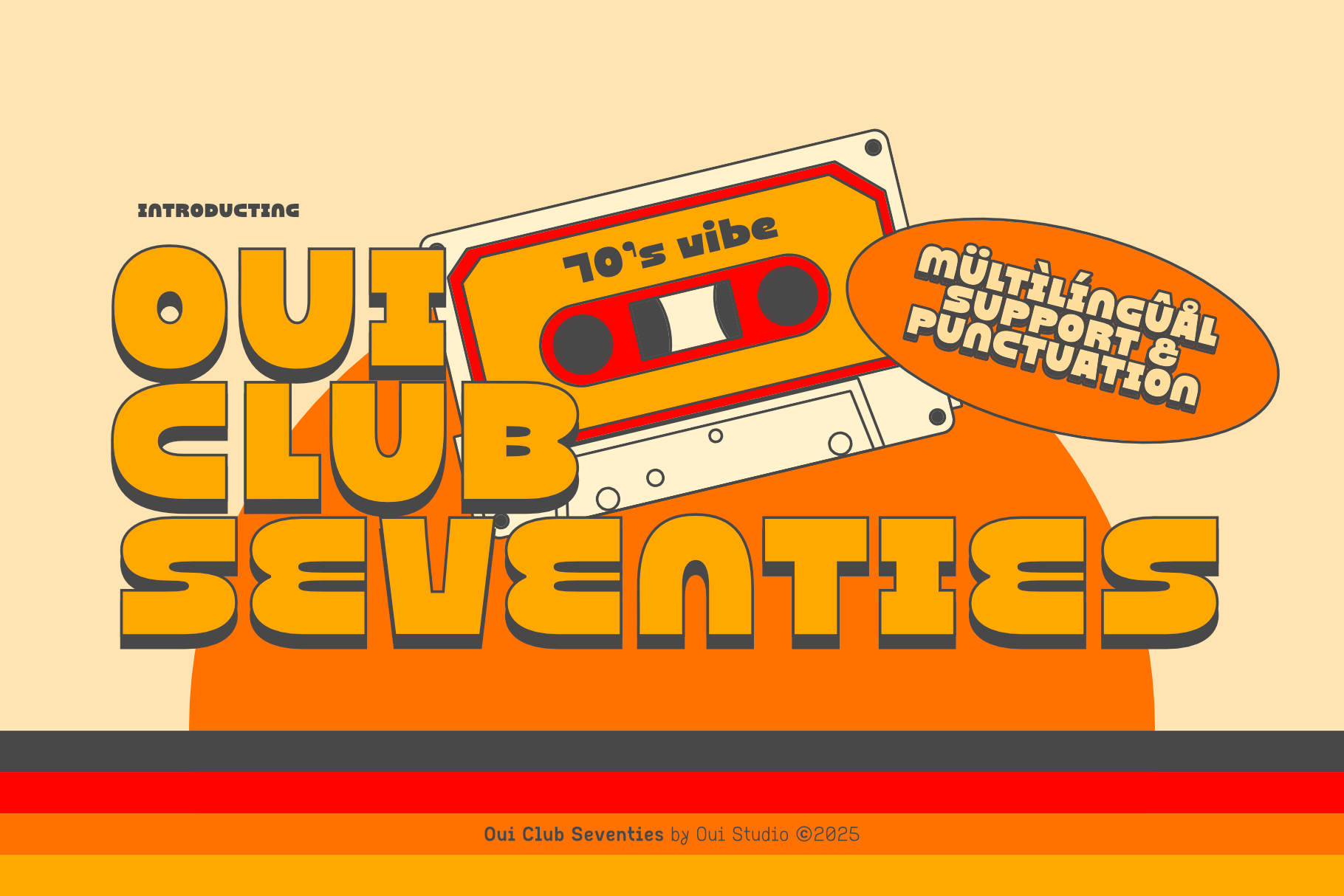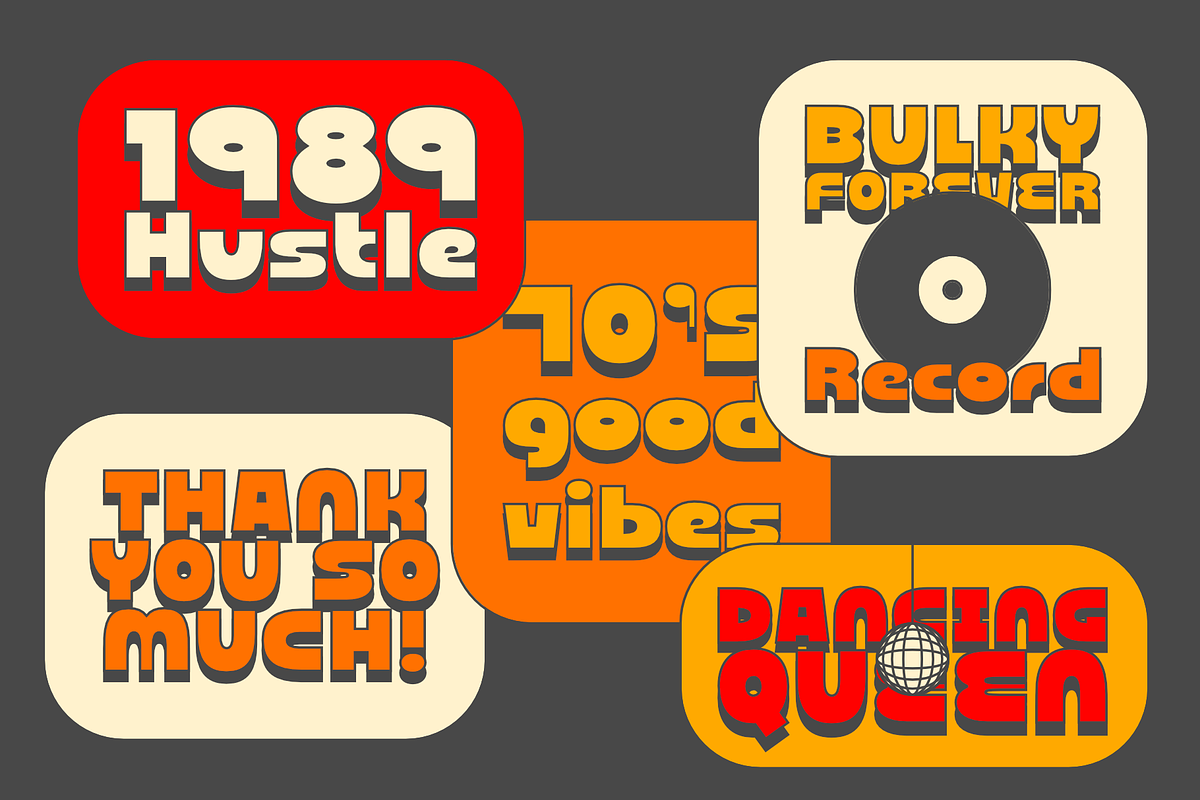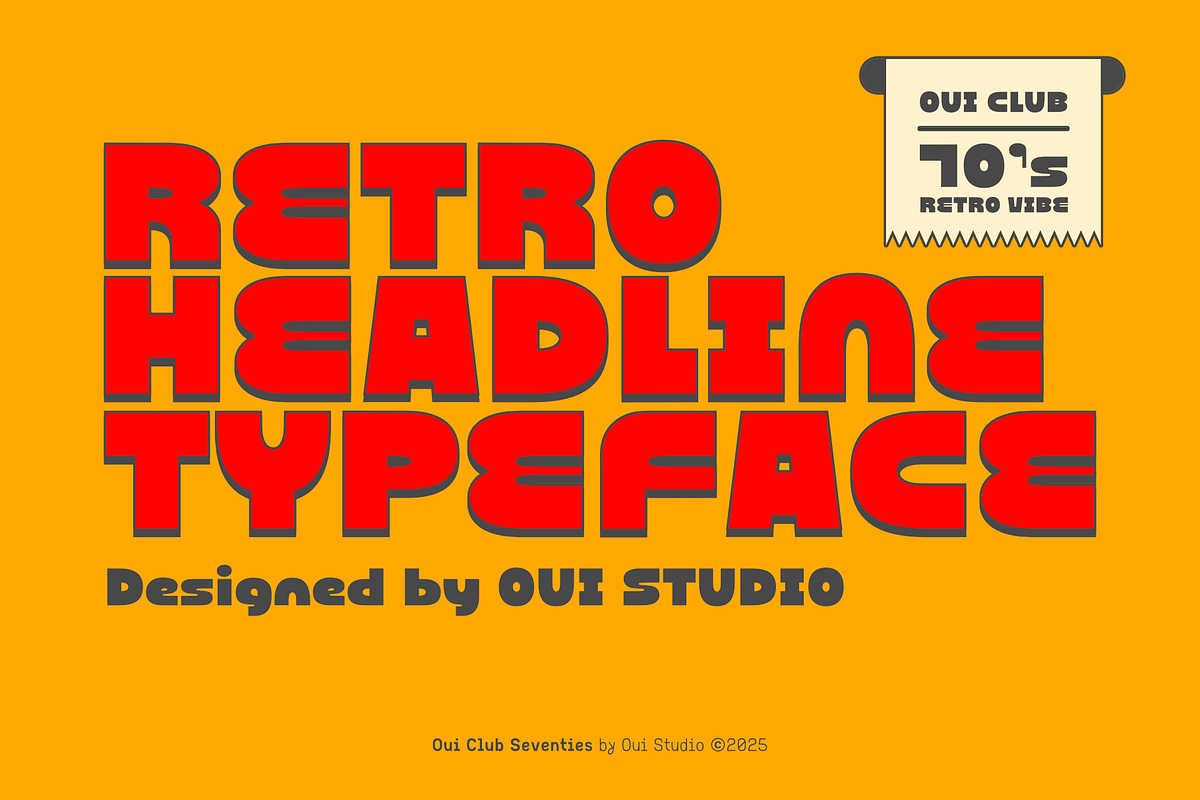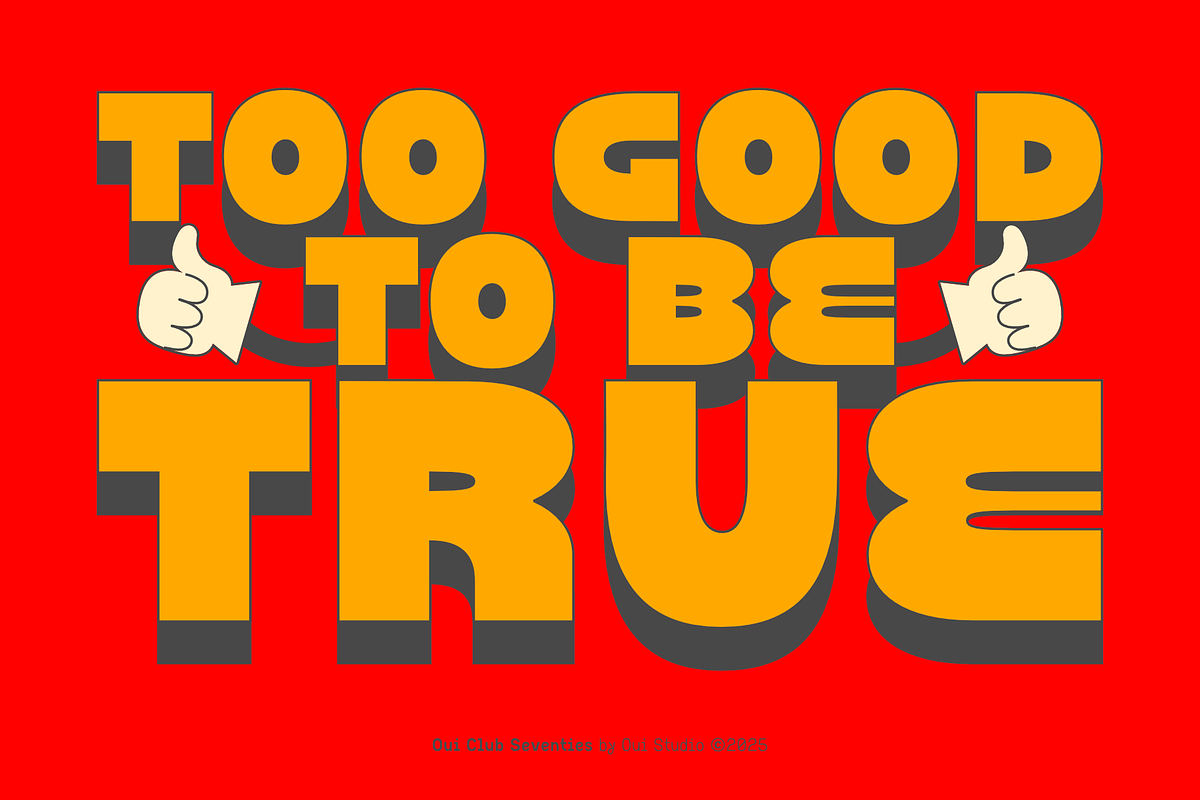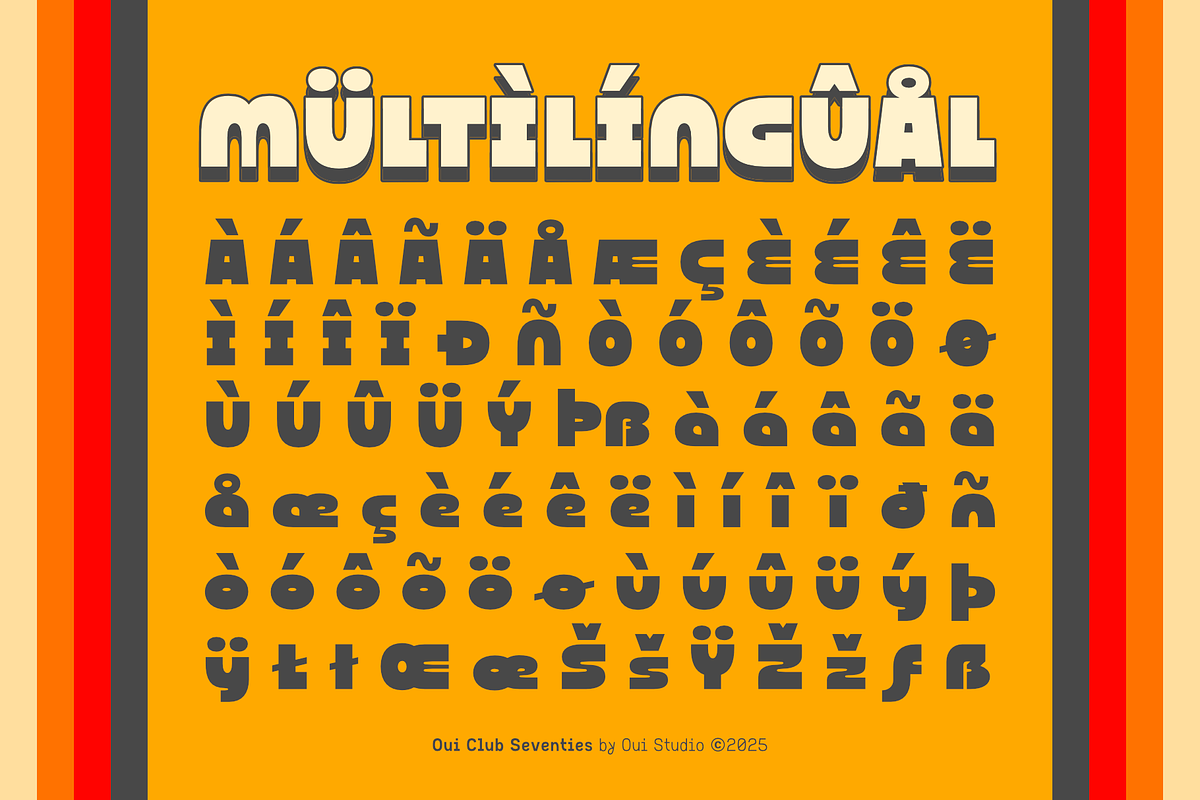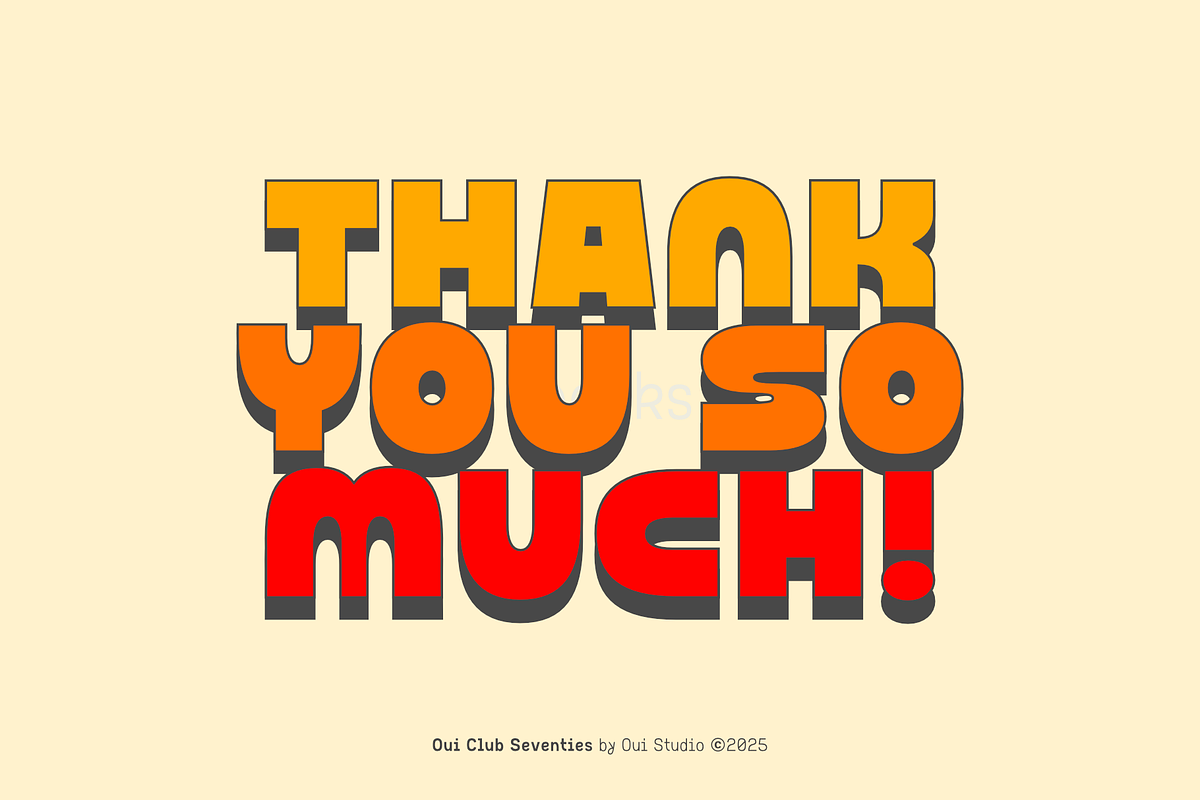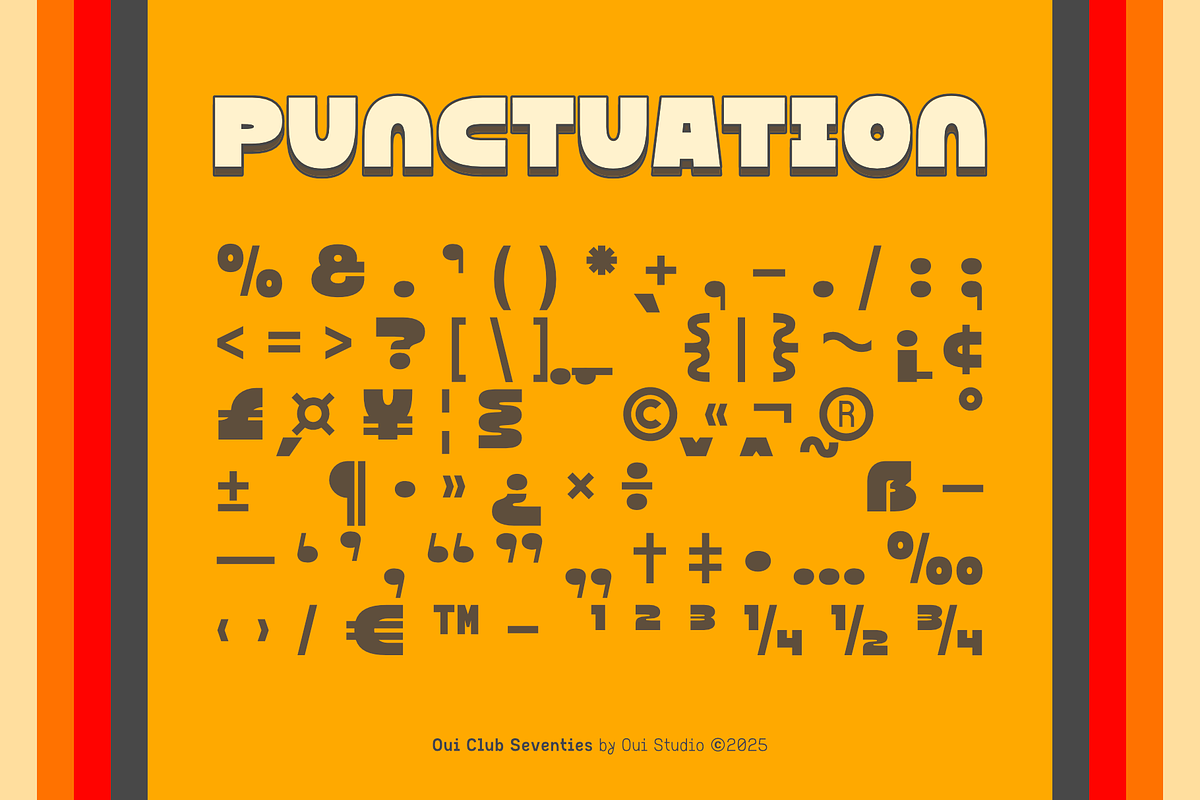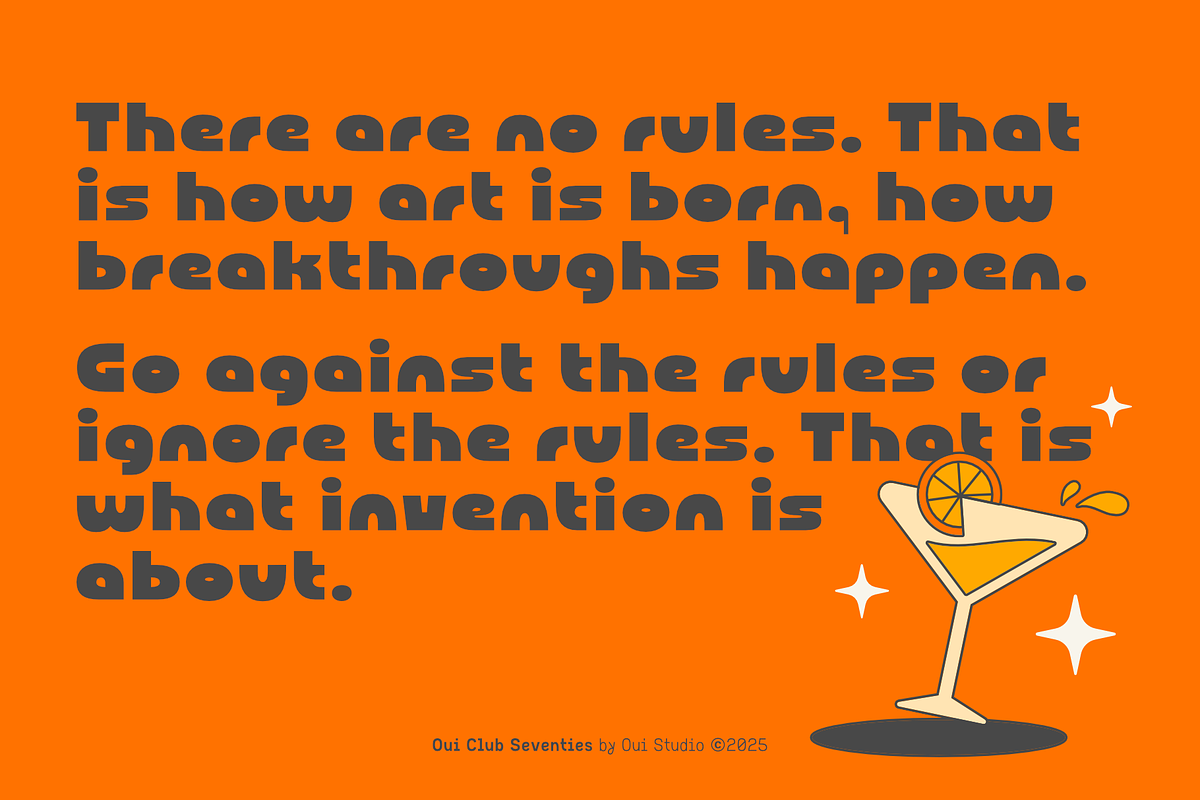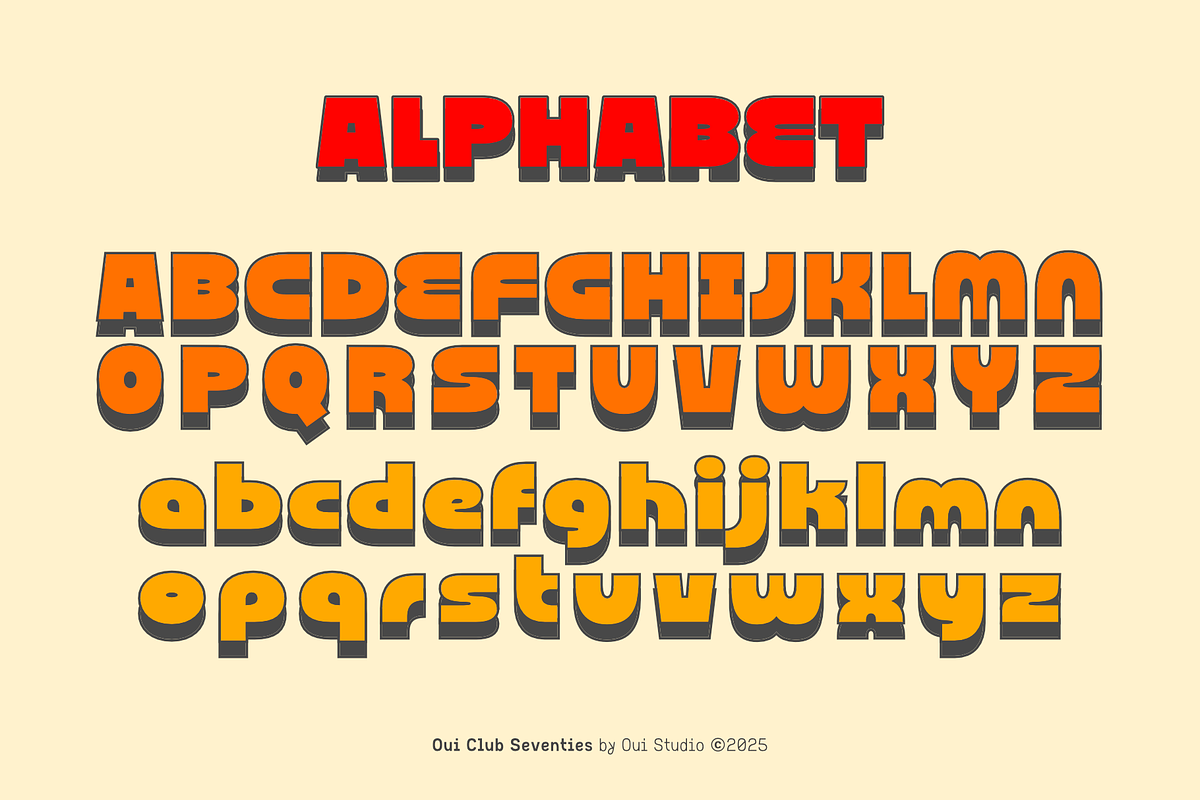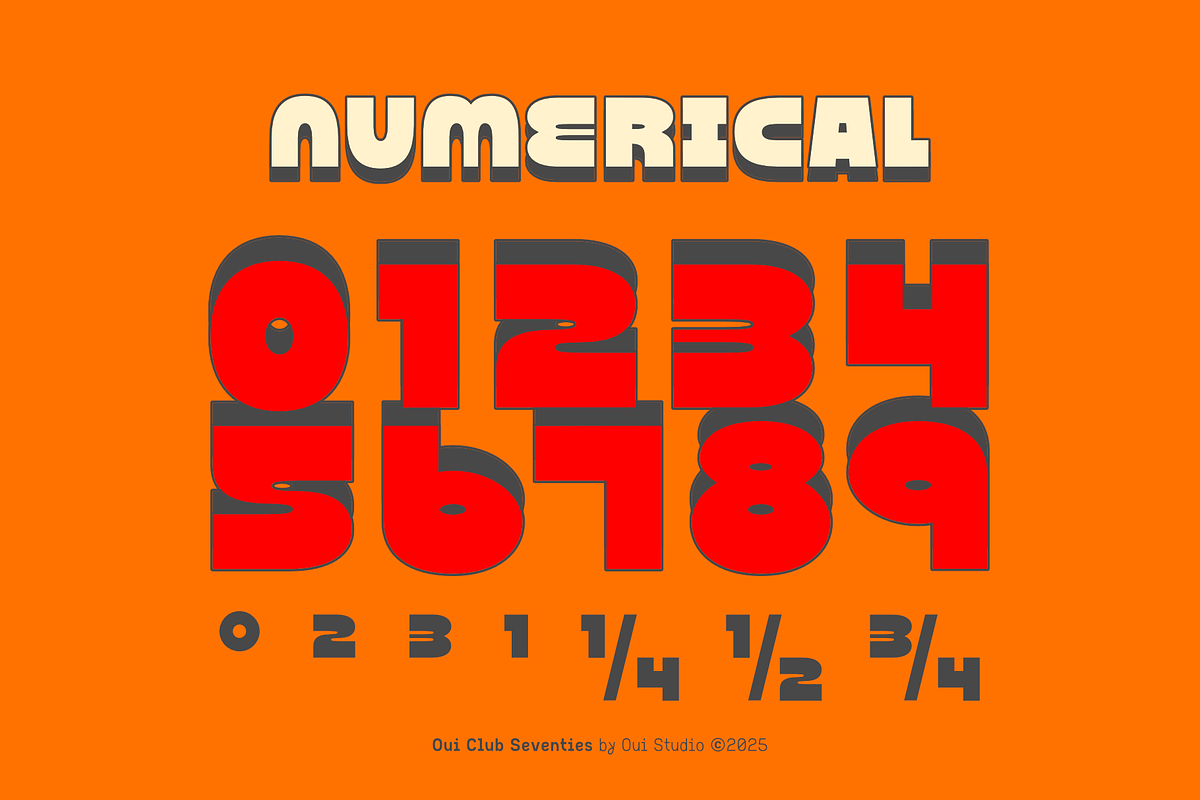
Oui Club Seventies Retro Font
Oui Club Seventies is a bold and nostalgic display font that captures the groovy spirit of the 1970s with effortless charm. Designed with smooth, rounded letterforms and thick, confident strokes, this typeface radiates warmth and retro personality. Its playful curves and tightly spaced design make it perfect for bold headlines, expressive logos, and attention-grabbing posters. Every character feels alive with vintage flair, reminiscent of disco-era design, classic album covers, and retro signage from the golden age of typography.
Crafted for creative expression, Oui Club Seventies shines in projects that call for a mix of fun and sophistication. Whether used for branding a modern lifestyle brand, designing event promotions, or creating nostalgic packaging, it brings instant personality and visual impact. Though rooted in the past, its timeless curves make it versatile for today’s design trends—bridging eras with style and confidence. This font is best suited for large display use, where its bold forms and groovy rhythm can truly stand out and make a statement.